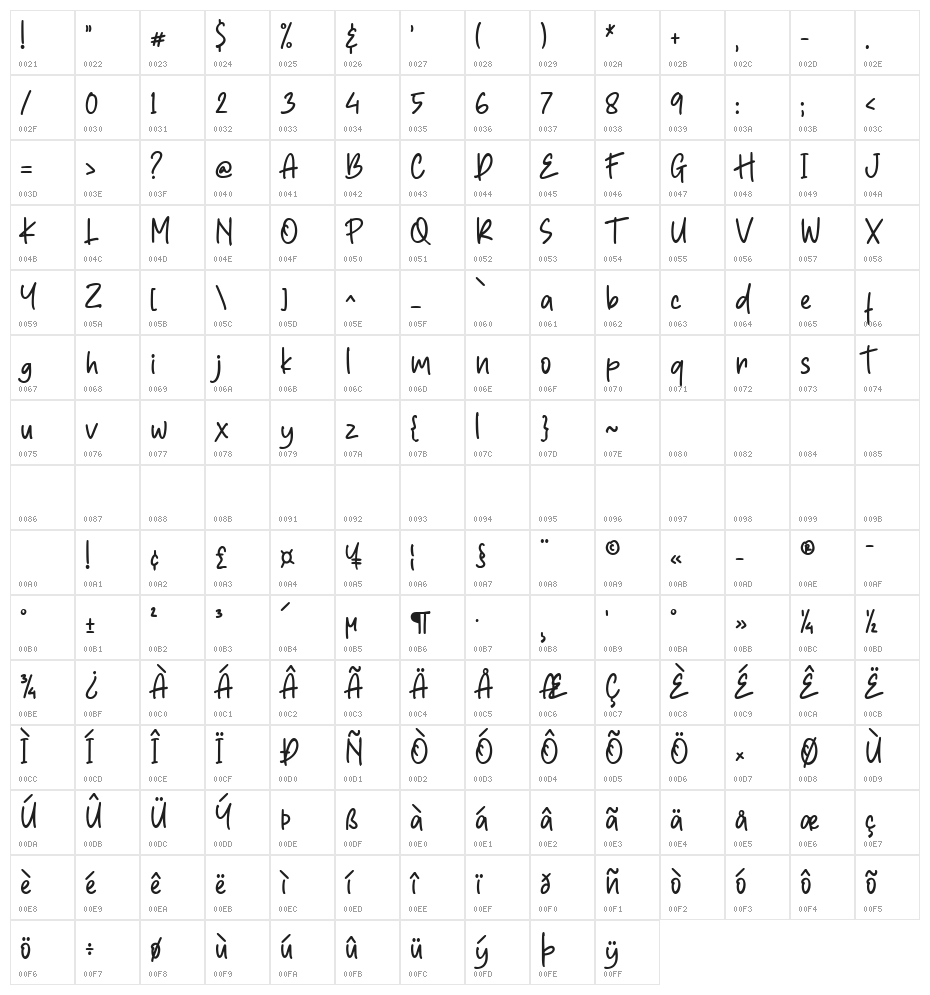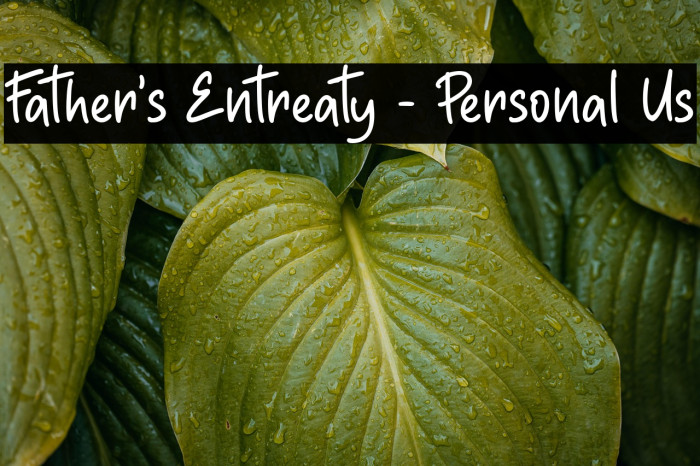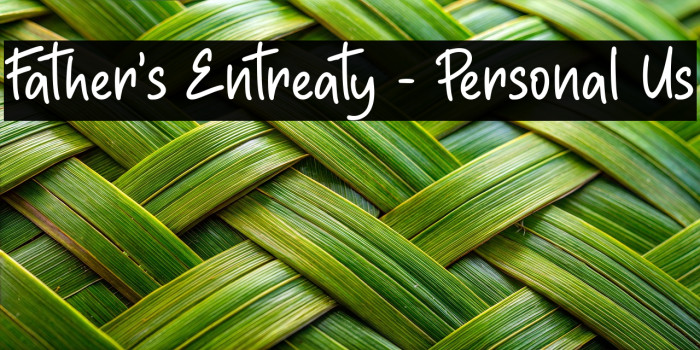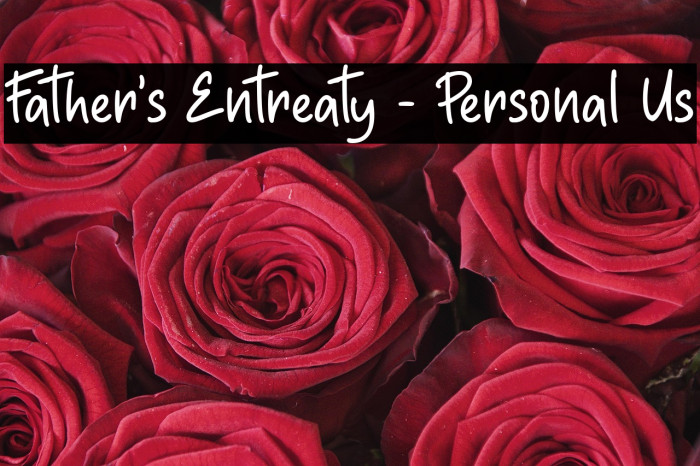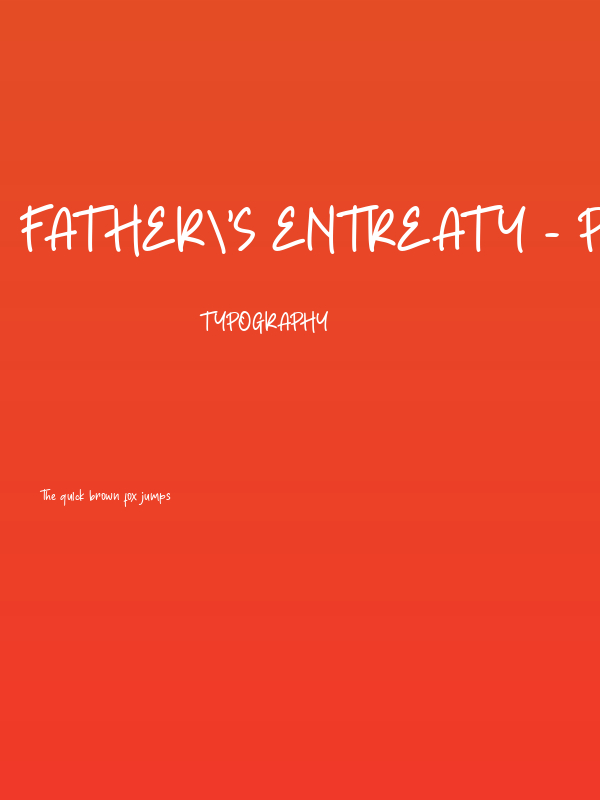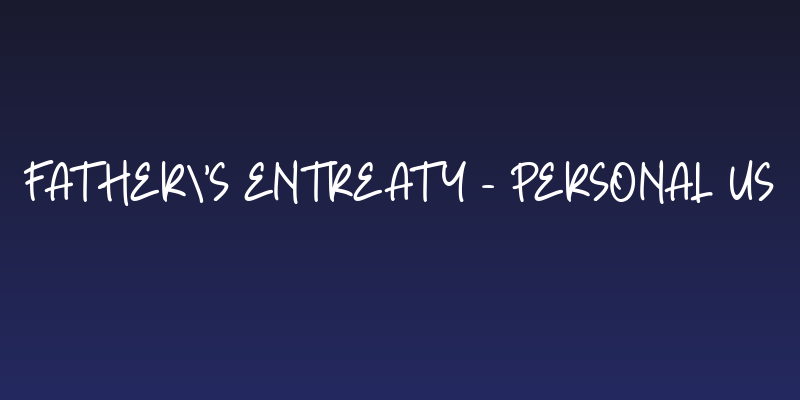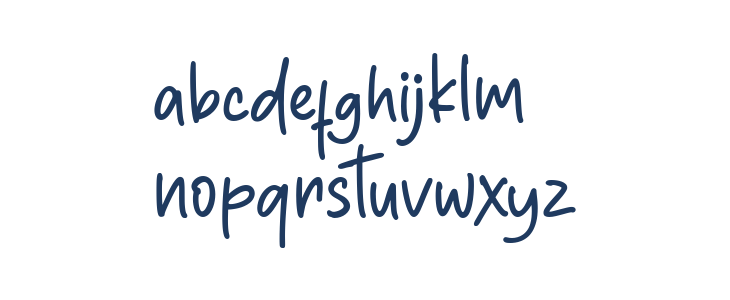
Father's Entreaty - Personal Us Font
Father's Entreaty - Personal Us Description
This font features a playful and casual handwritten style, characterized by its smooth and flowing letterforms. The strokes are consistent, with a slight variation in thickness that adds to its informal charm. The uppercase letters are bold and prominent, while the lowercase letters maintain a friendly and approachable appearance. The numerals are clear and easy to read, complementing the overall aesthetic. Special characters are well-integrated, maintaining the font's cohesive look. This font is ideal for projects that require a personal touch, such as greeting cards, invitations, or casual branding.
| Use Case | Logos, Headlines, Personal notes |
| Proposed Projects | Greeting cards, invitations, casual branding, personal notes. |